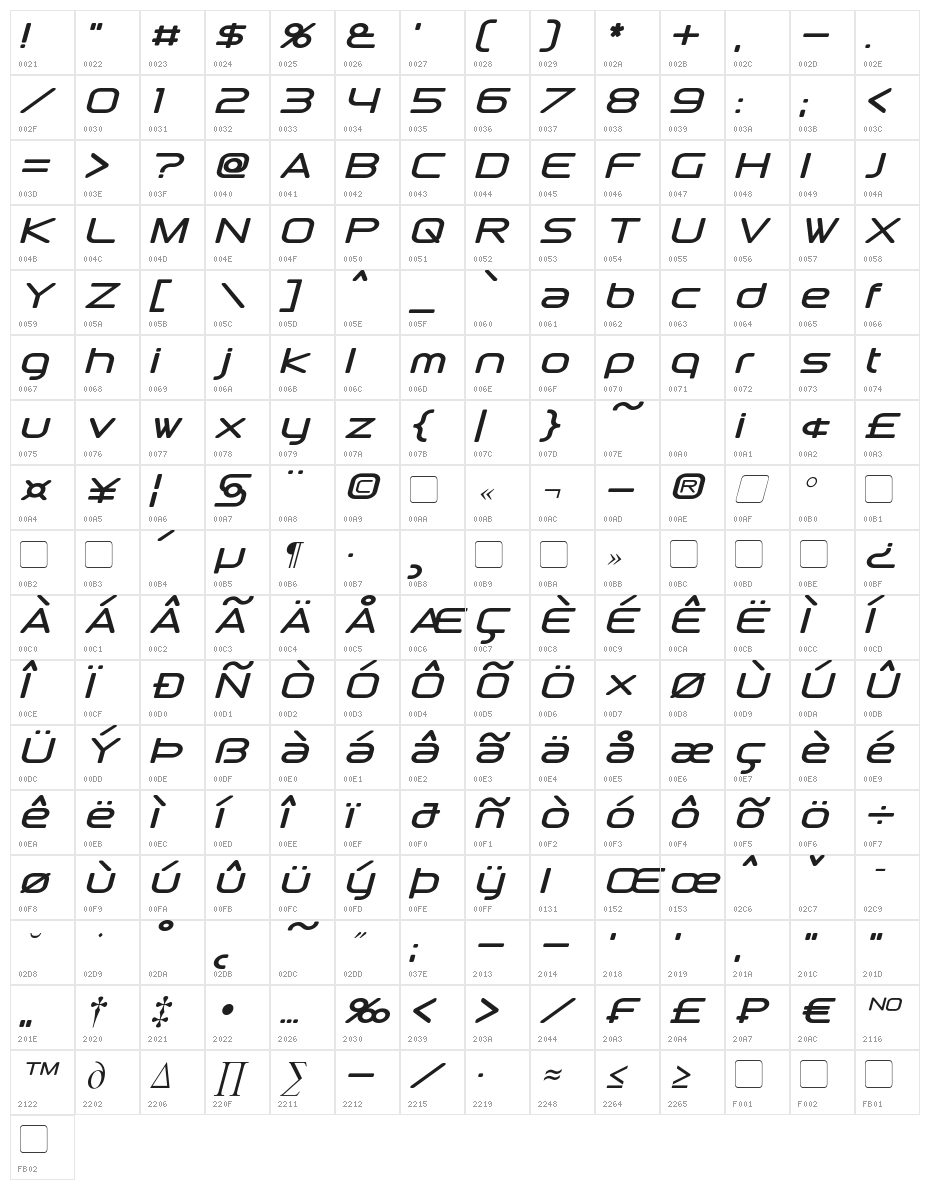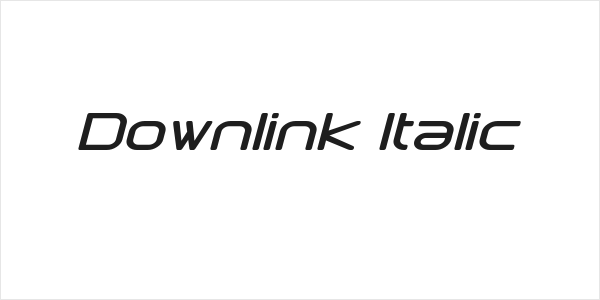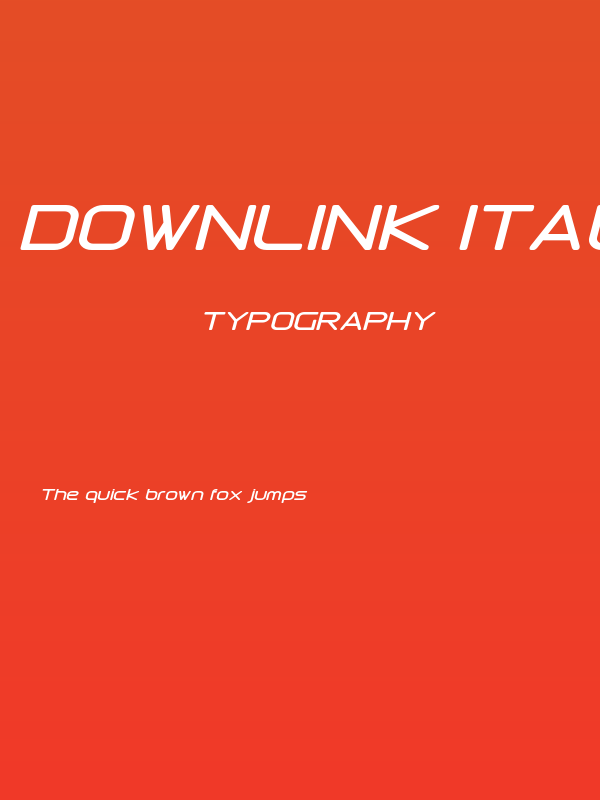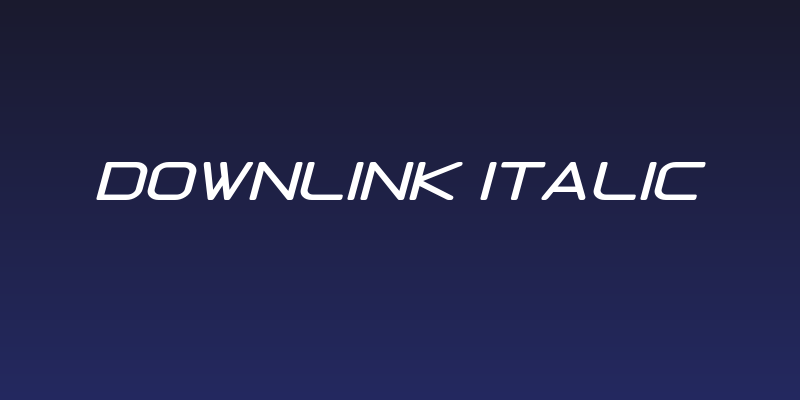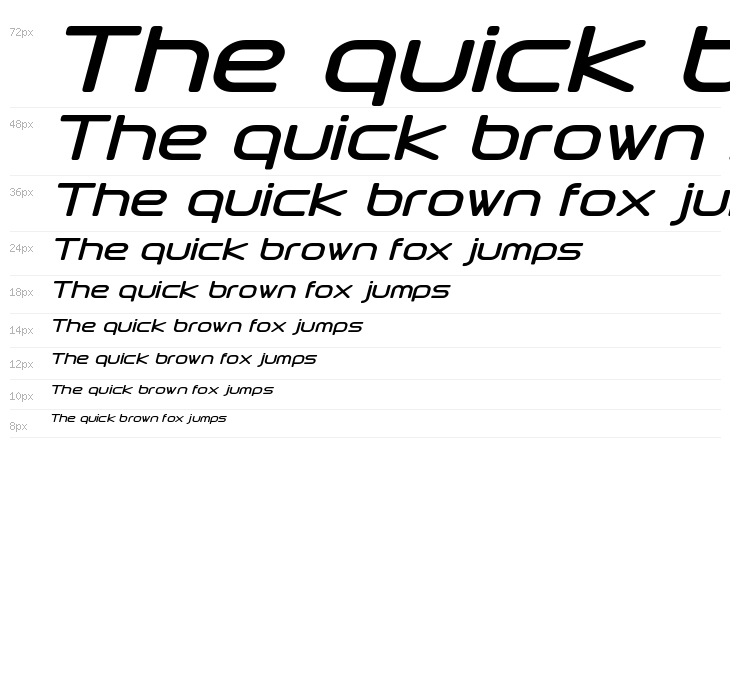
Downlink Italic Font
Downlink Italic Description
This font features a sleek, modern design with a distinct italic slant, giving it a dynamic and forward-moving appearance. The characters are crafted with a geometric precision, featuring rounded corners and a consistent stroke width that adds to its futuristic aesthetic. The uppercase and lowercase letters maintain a uniform style, with a slight variation in height and width that enhances readability. The numerals and special characters are designed to complement the alphabet, maintaining the same stylistic elements. This font's clean lines and contemporary feel make it suitable for a variety of digital and print applications.
Use CaseHeadlines, Logos, Digital interfaces
Proposed ProjectsIdeal for tech branding, digital interfaces, modern advertising, and futuristic-themed designs.